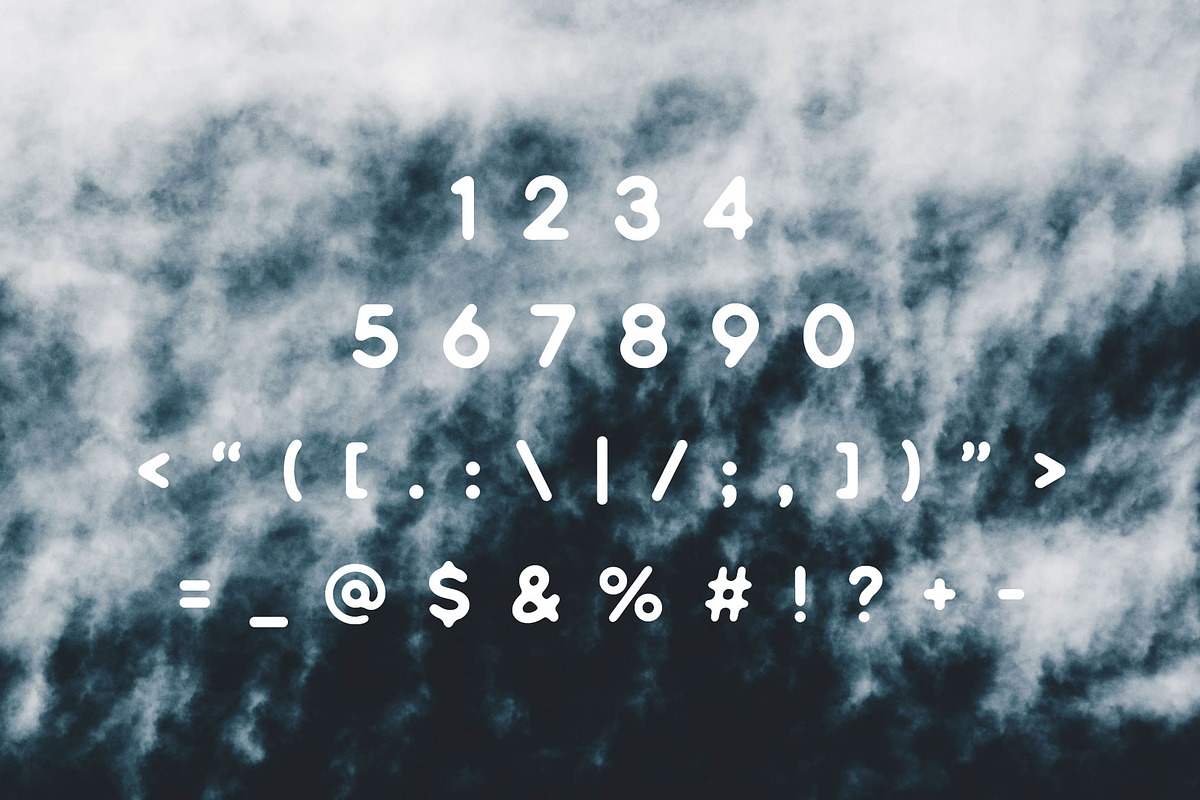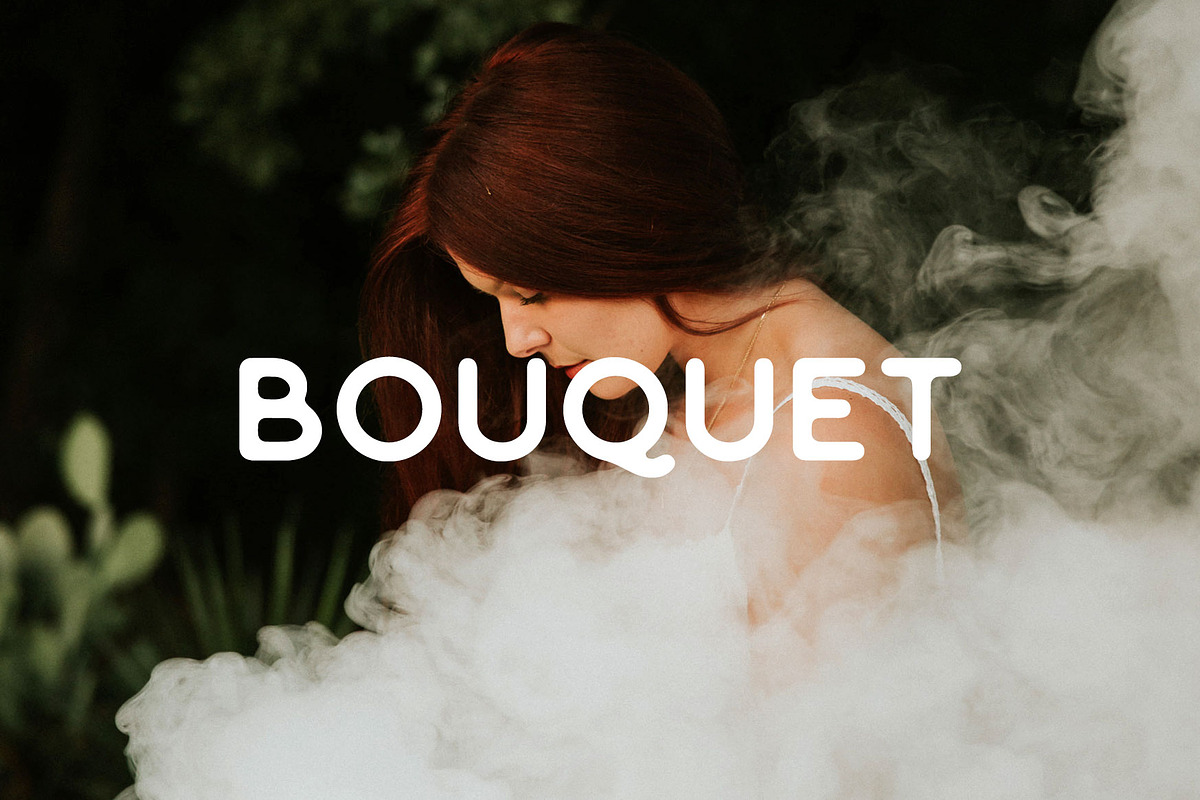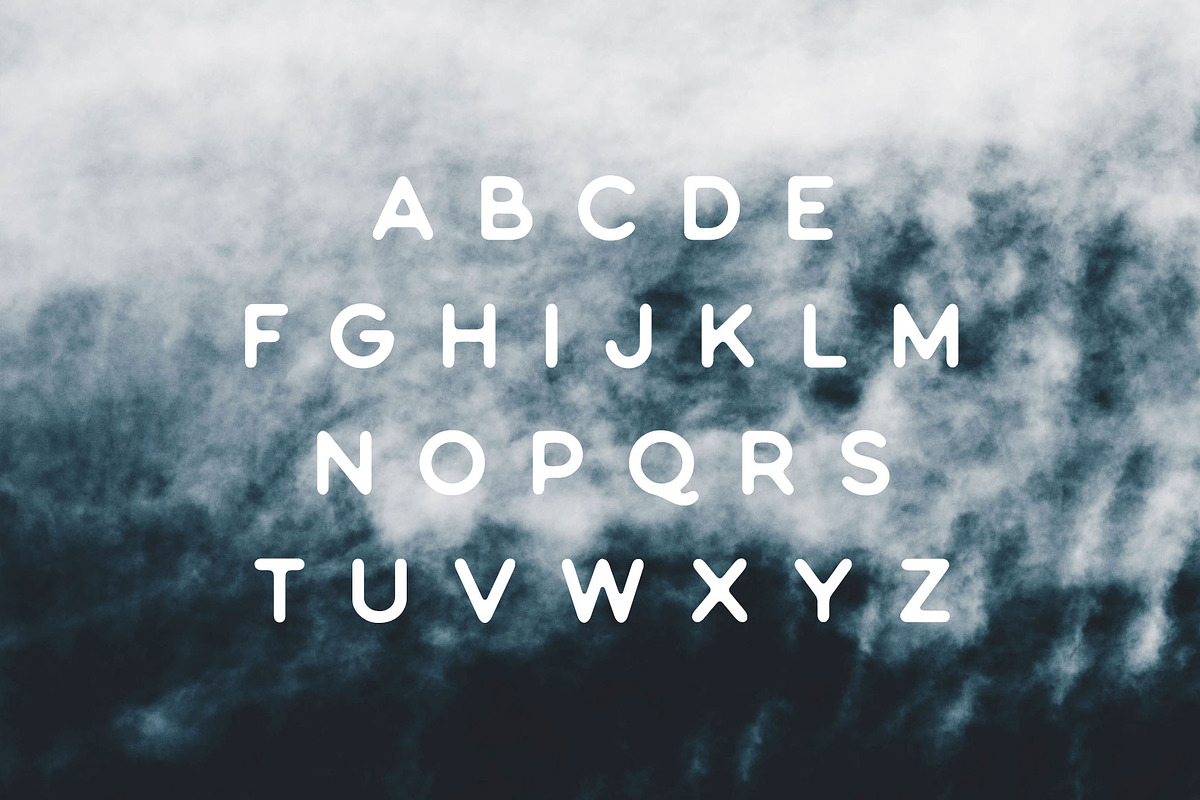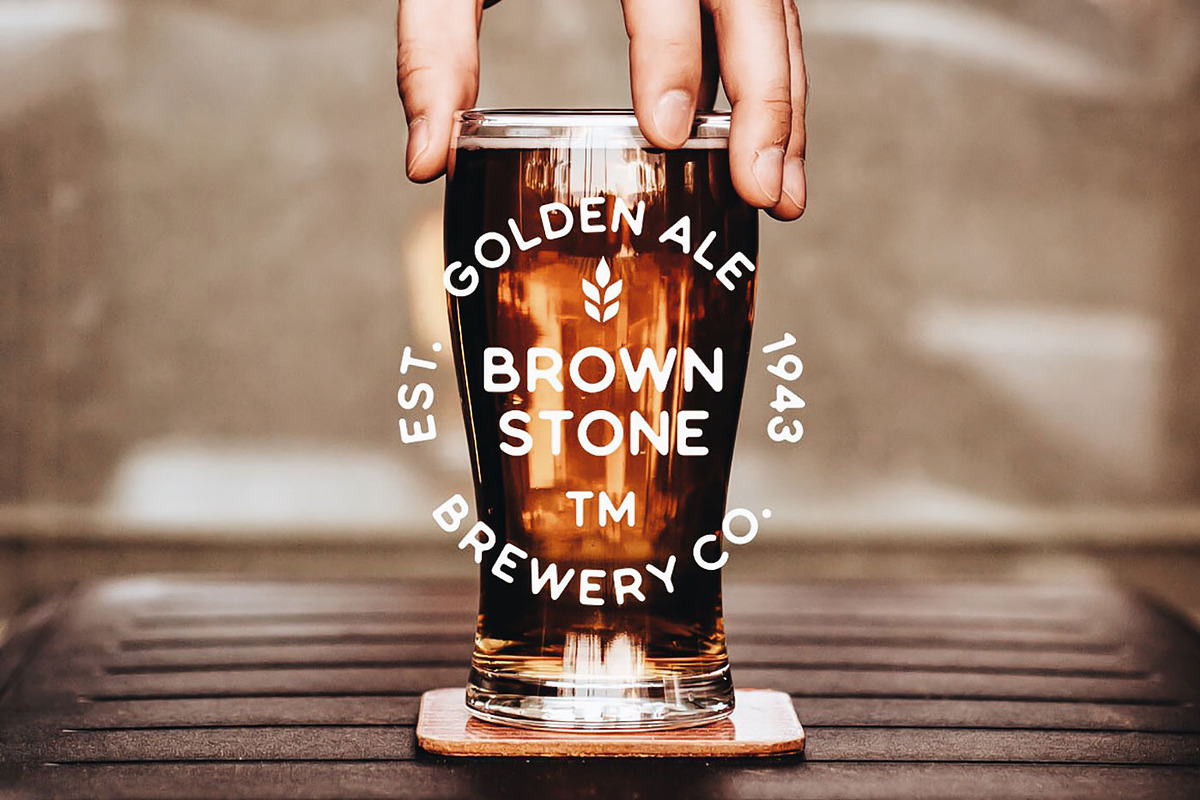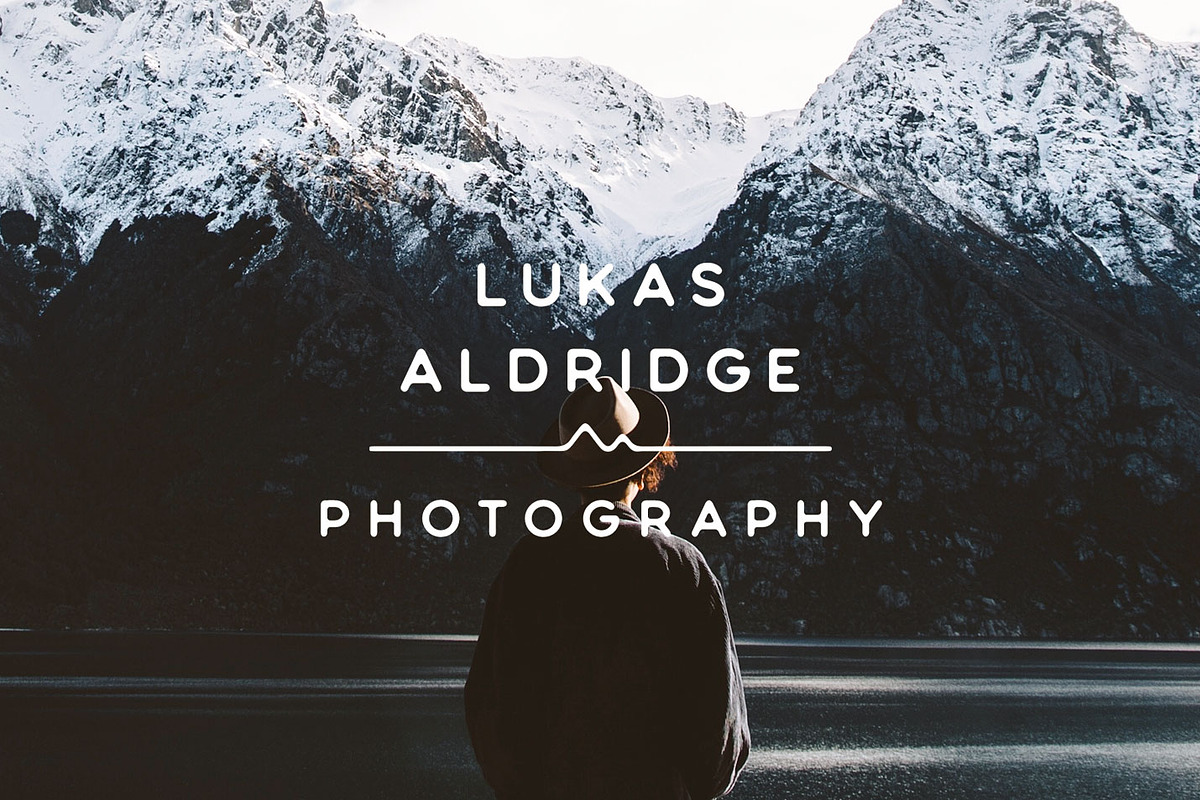
Bouquet Font
Bouquet Font by Mark van Leeuwen is a font selected for branding, posters, packaging, typography.
- The font includes an uppercase alphabet, numbers and common symbols.
Bouquet Font by Mark van Leeuwen fits naturally into Branding, posters, packaging, typography.